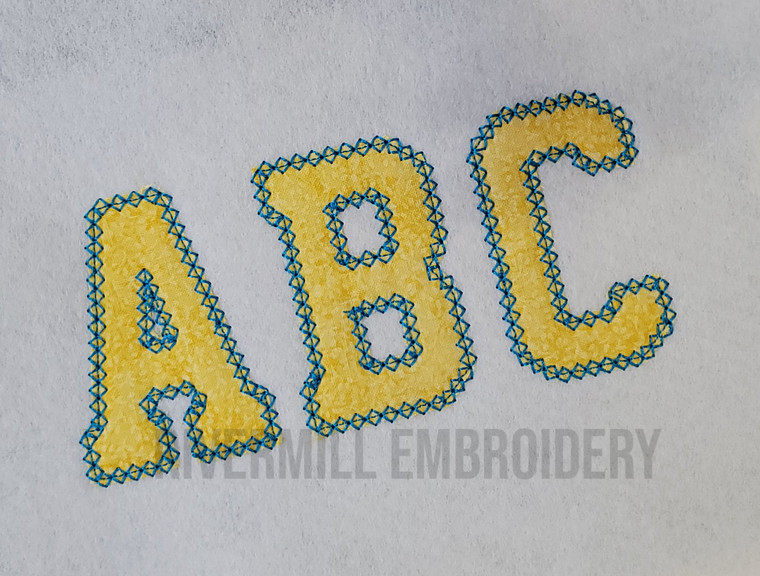
Small Varsity Diamond Edge Applique Machine Embroidery Font
This set comes with the 26 upper case letters.  The sizes included are 2" and 2 1/2".  Each letter has a diamond edge.